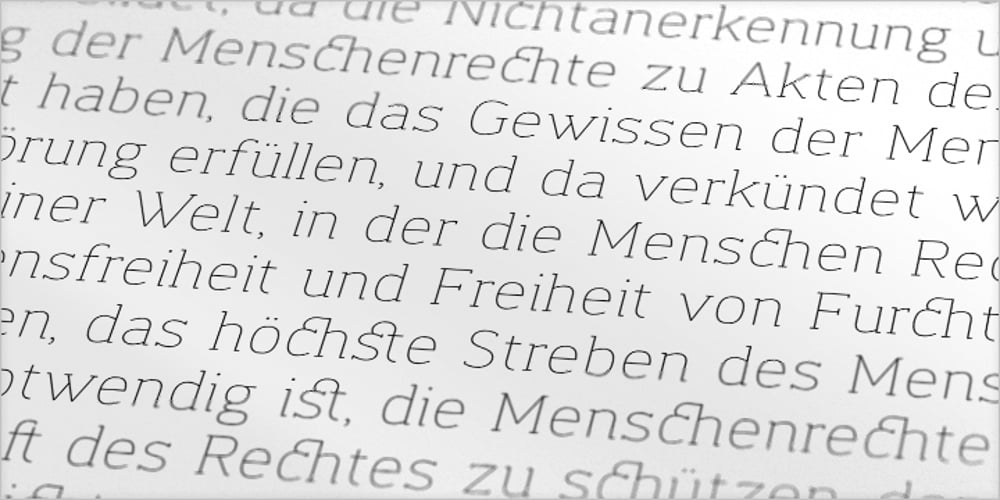
Dada Slab Pro
Dada Slab Pro font
Dada Slab Pro Font Family was designed by Michał Jarociński and published by Dada Studio. Dada Slab Pro contains 1 styles and family package options. Dada Slab Pro is simple in form but an elegant font with huge language support and open-type features like ligatures, stylistic alternates, fractions, four variations of numerals and many more… It is suitable for large headlines in applications like magazines or newspapers.